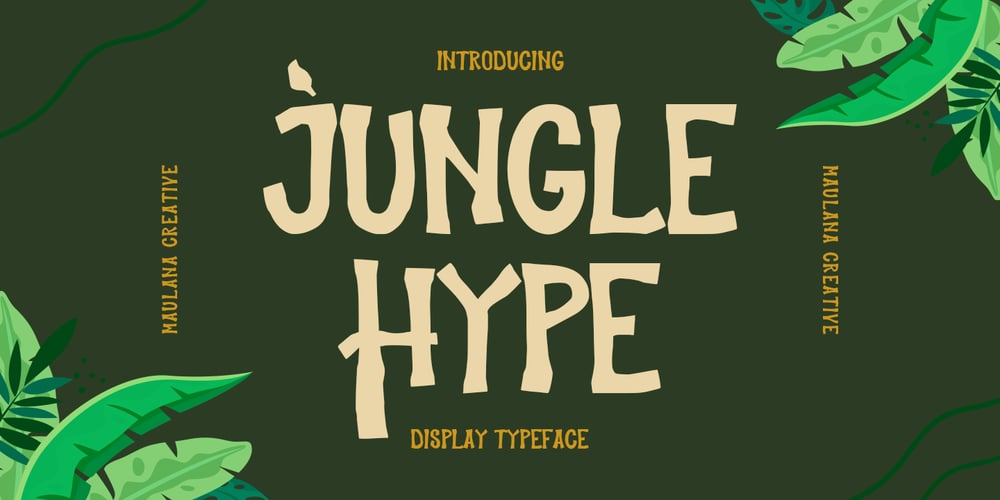
MC Jungle Hype Font Family was designed by Gilang Maulana and published by Maulana Creative. MC Jungle Hype contains 1 styles and family package options. Jungle Hype is a modern display typeface font. With bold stroke, fun character with a bit of ligatures and alternates. To give you an extra creative work. Jungle Hype font support multilingual more than 100+ language. This font is good for logo design, Social media, Movie Titles, Books Titles, a short text even a long text letter and good for your secondary text font with sans or serif. Make a stunning work with Jungle Hype font.Cheers,Maulana Creative